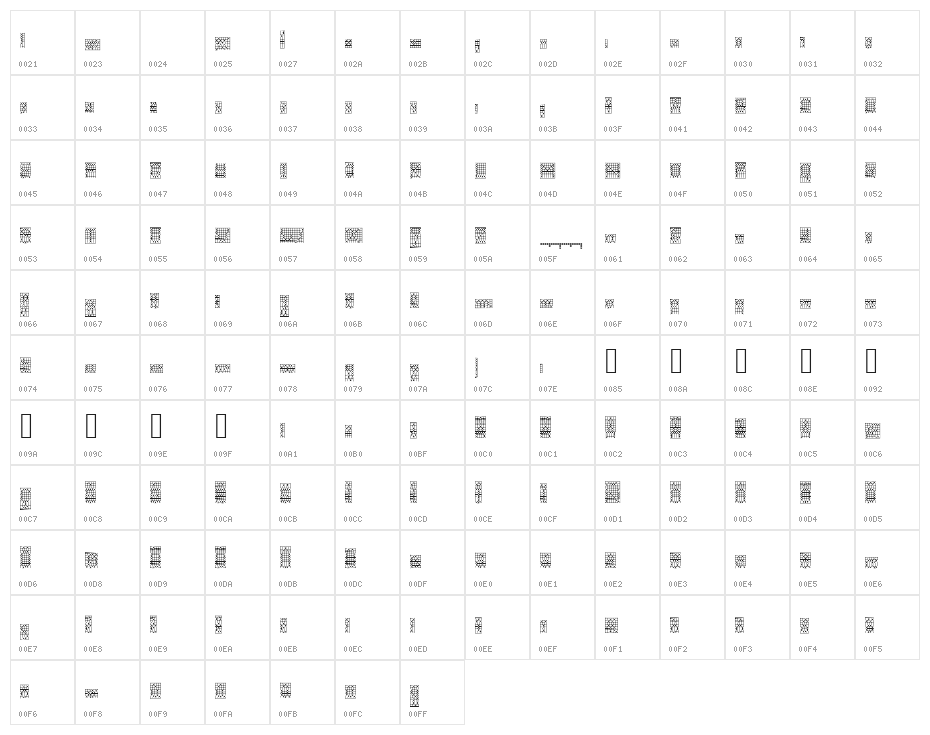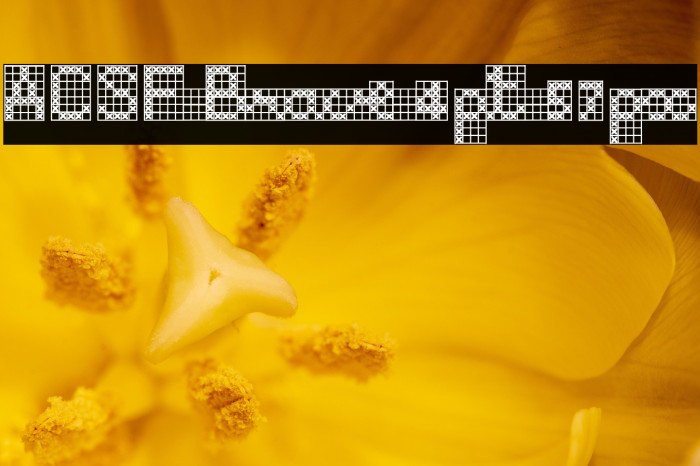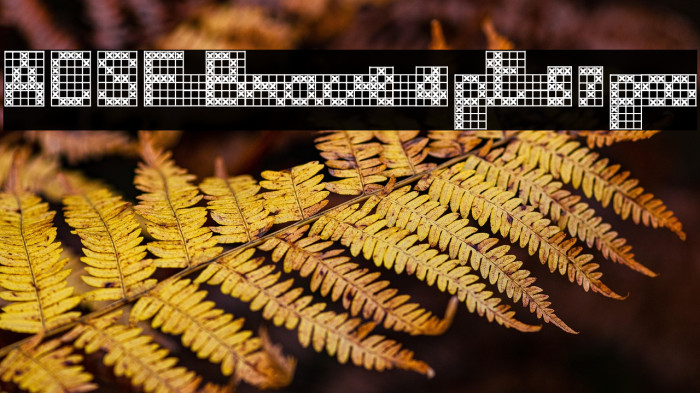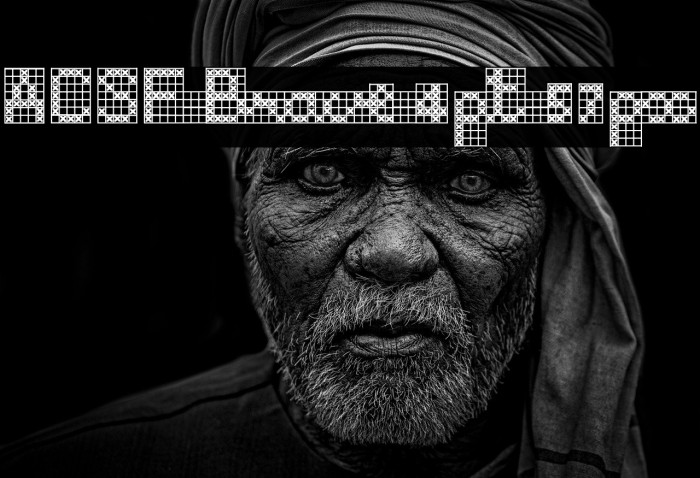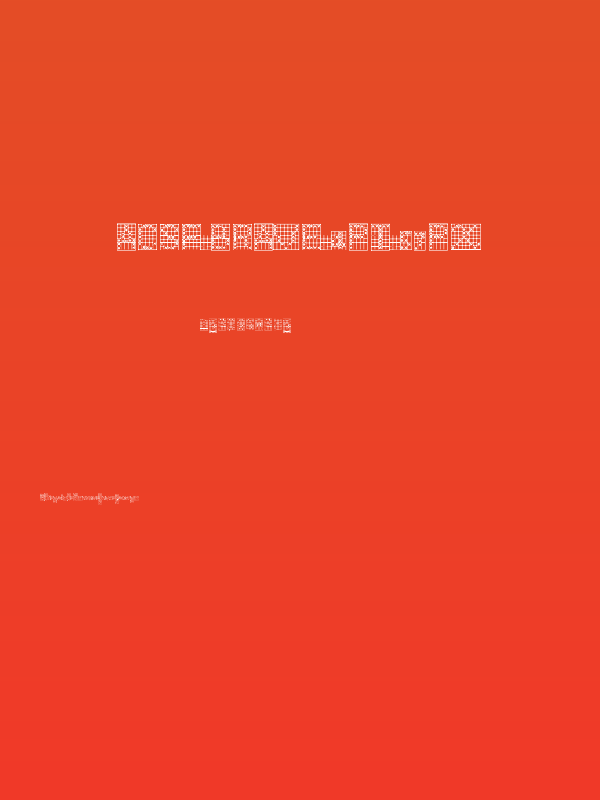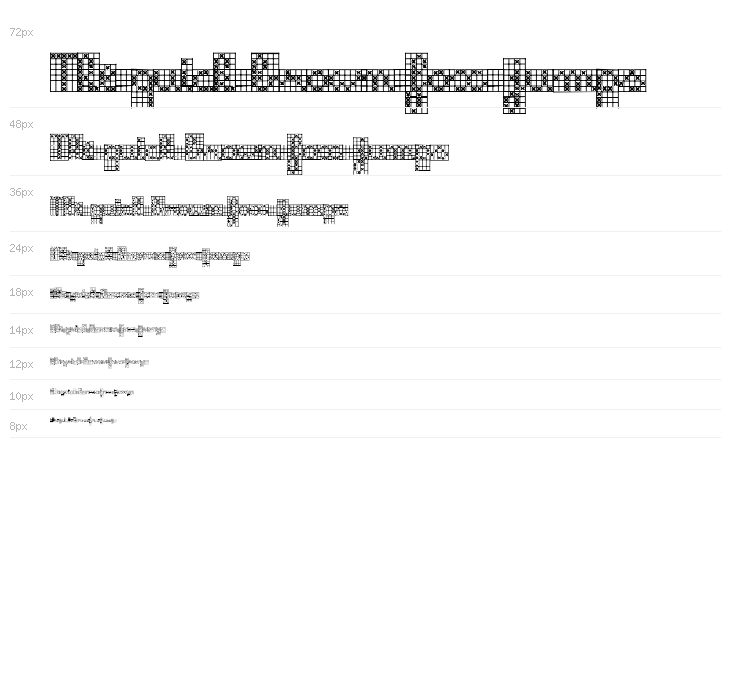
ACSF Brave 4pt 57px Font
ACSF Brave 4pt 57px Description
This font features a unique grid-based design, where each character is composed of a series of small squares, creating a pixelated effect. The geometric structure gives it a modern and digital appearance, reminiscent of early computer graphics or retro video games. Each letter and number is distinctly outlined, enhancing readability despite the intricate pattern within each character. The special characters maintain the same grid style, ensuring consistency across the entire set. This font's bold and structured nature makes it stand out, offering a visually striking option for creative projects.
| Proposed Projects | Ideal for digital art, retro-themed designs, video game graphics, and creative posters. |